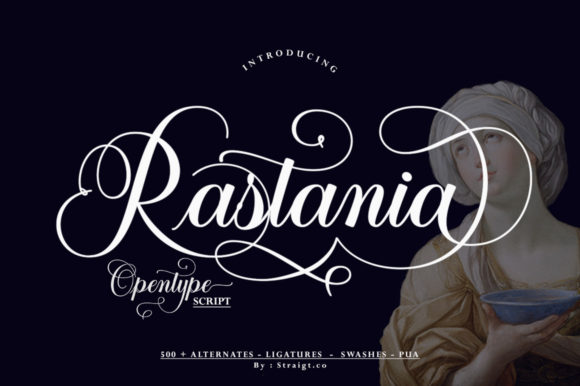
Journey into the Realm of Elegance with Rastania Script: An Exquisite Symphony of Letters
Unleash the beauty of your creations with Rastania Script, a mesmerizing script font that dances across your screen with its intricate swirls and playful strokes. Each letter, meticulously crafted with the finest attention to detail, is a testament to the artistry of STRAIGHT.CO, the creative force behind this typographic masterpiece.
Immerse yourself in the world of Rastania Script and discover a font that embodies both elegance and versatility. Its fluid lines add a touch of whimsy to your designs, while its strong character ensures that your message is conveyed with clarity and impact. Whether you're crafting wedding invitations that exude timeless romance, creating captivating social media posts that demand attention, or designing logos that leave a lasting impression, Rastania Script is your ultimate companion.
As a script font, Rastania Script possesses an innate ability to evoke emotions and create a personal connection with your audience. Its graceful curves and delicate flourishes add a touch of warmth and authenticity to your designs, making them truly captivating. Say goodbye to bland and forgettable typography and embrace the power of Rastania Script to transform your creative visions into breathtaking realities.
With Rastania Script, the possibilities are endless. Let your imagination soar as you explore the myriad ways to incorporate this stunning font into your designs. From enchanting wedding videos that capture the essence of love to captivating social media posts that spark engagement, Rastania Script is the perfect choice for those who seek to make a statement.
Don't settle for ordinary fonts that blend into the background. Choose Rastania Script, a font that commands attention and leaves a lasting impression. Experience the magic of Rastania Script today and elevate your designs to new heights of sophistication and elegance.